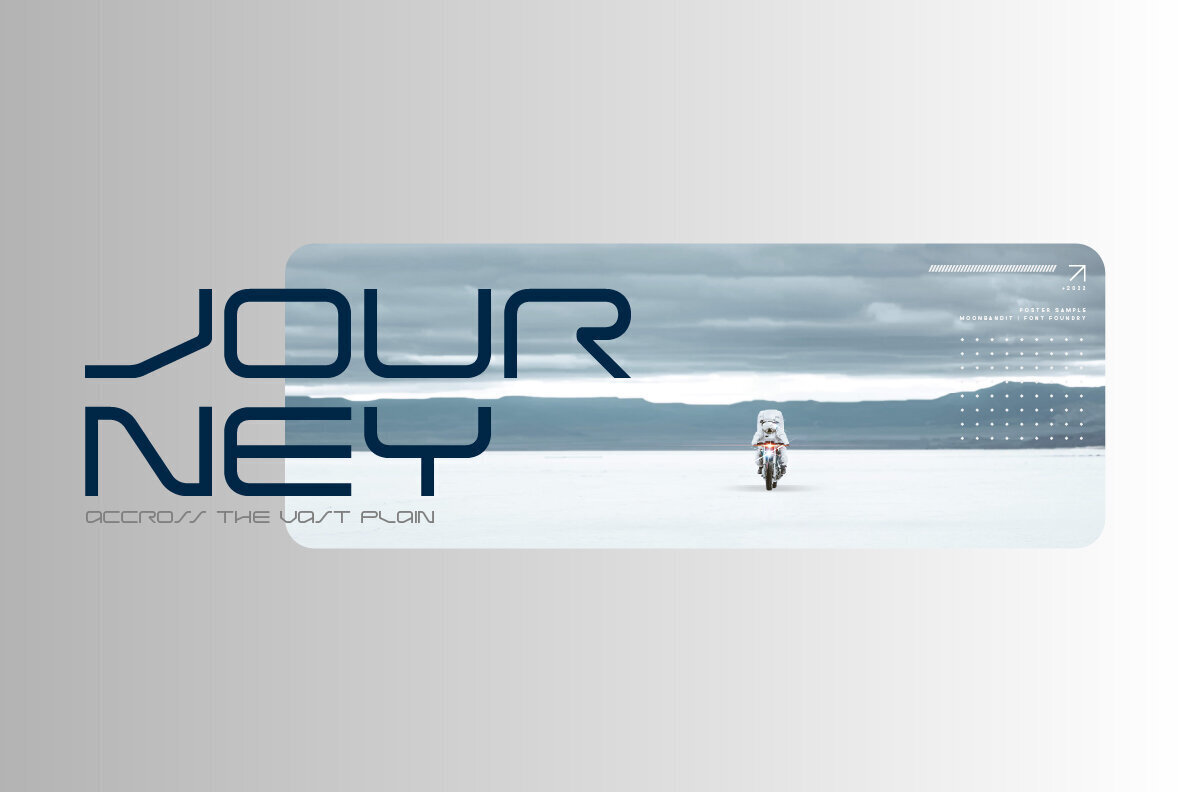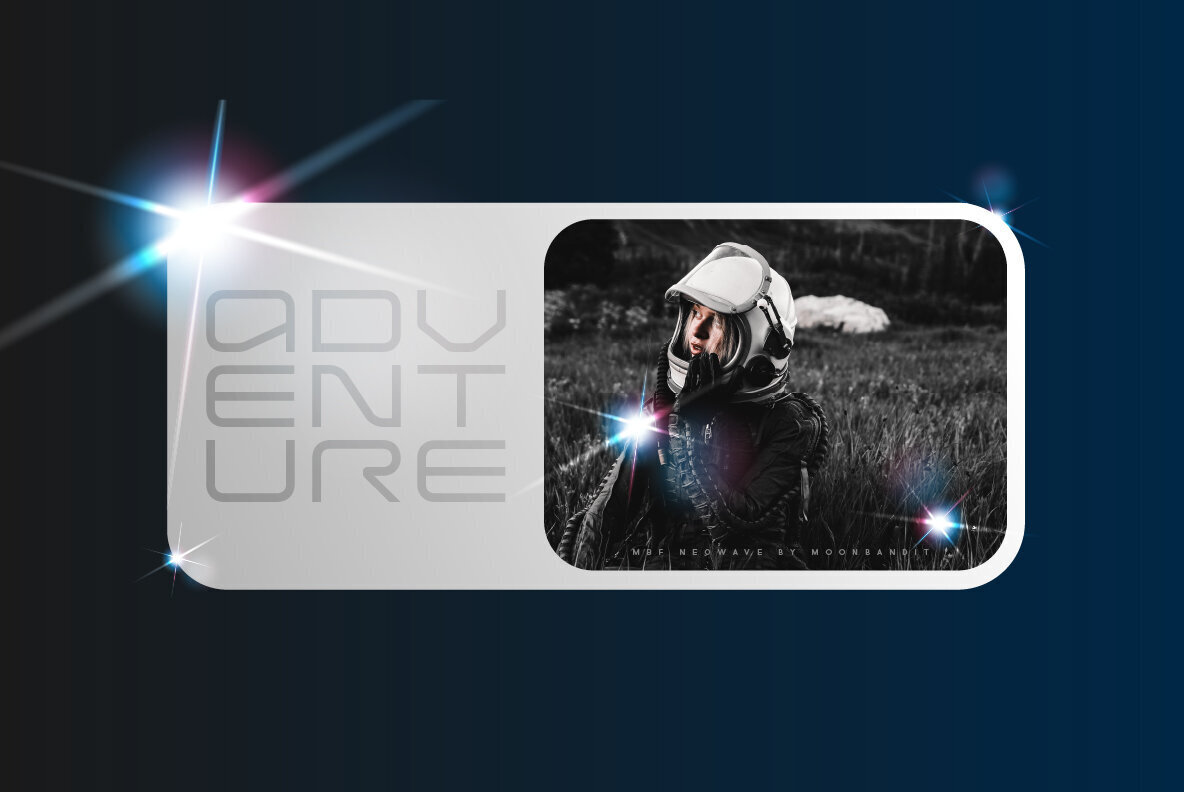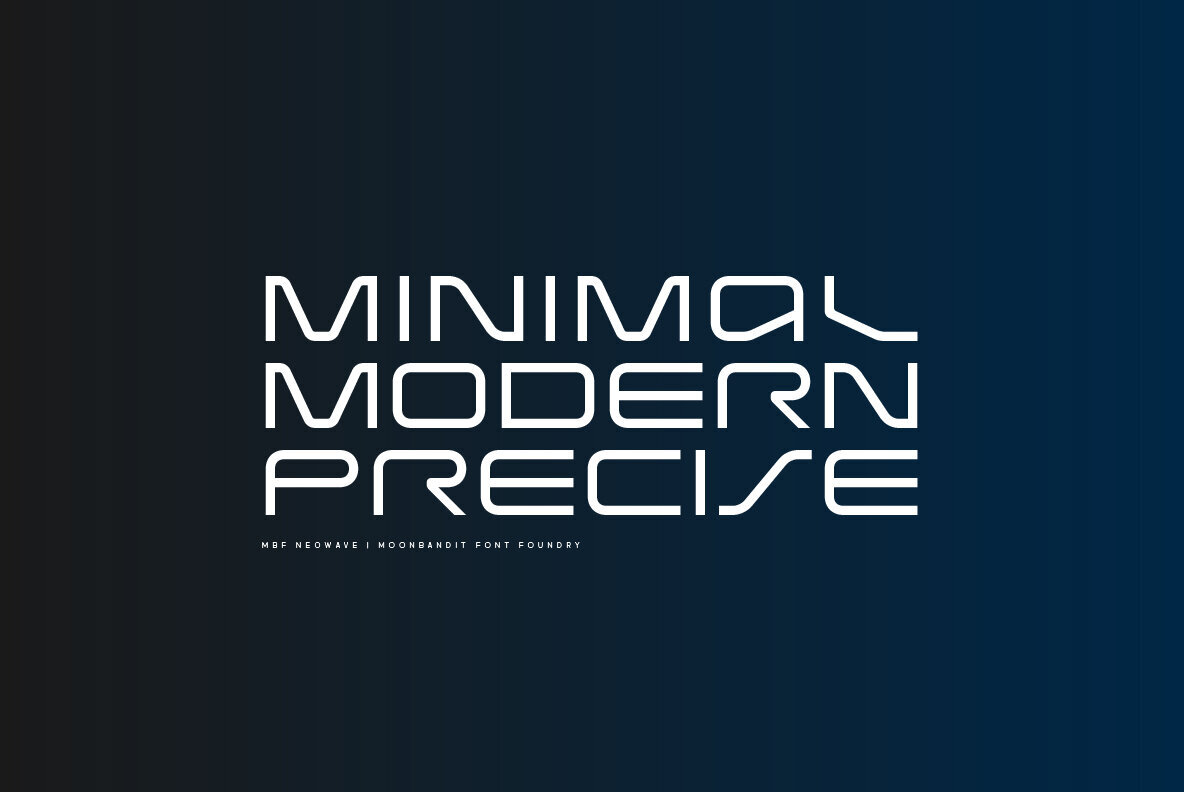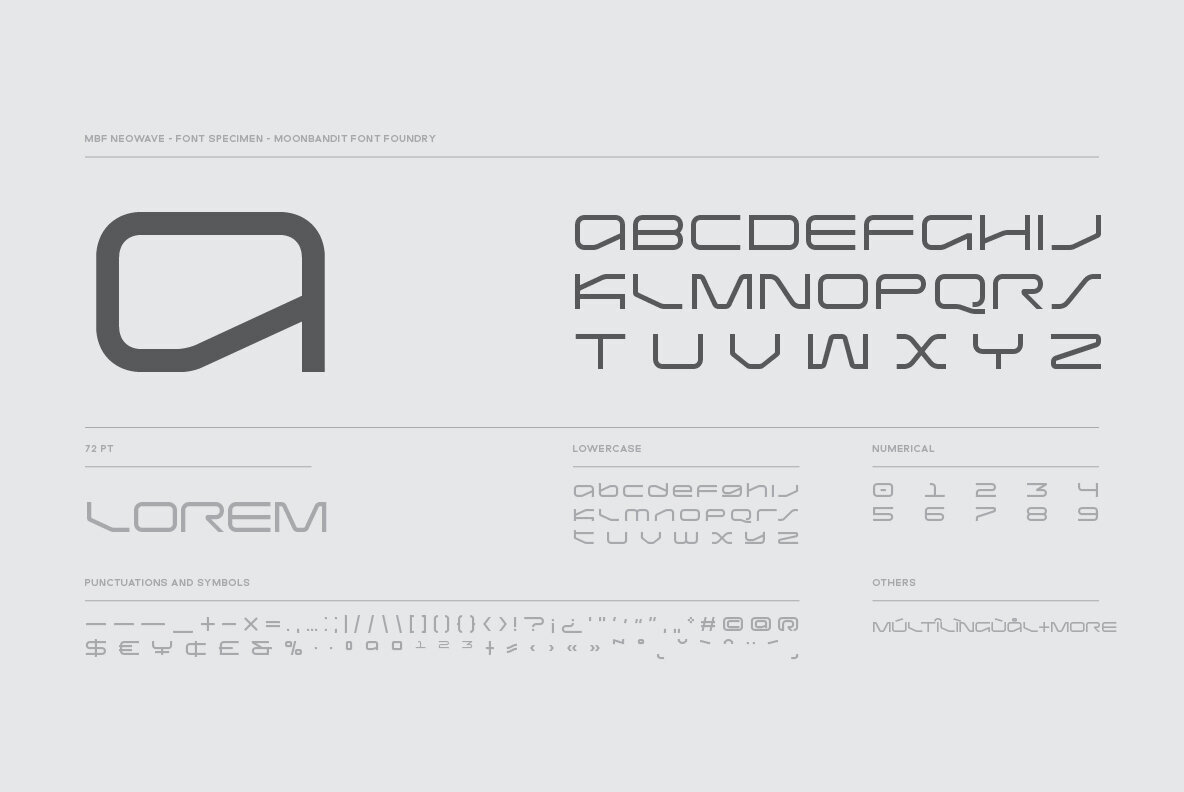
MBF Neo Wave Font
MBF Neo Wave
Neo Wave is a futuristic scifi display font. Wide and rounded typeface design with a modern minimalist approach. Perfect usage includes logo, poster, display, headline, t-shirt design and many more.